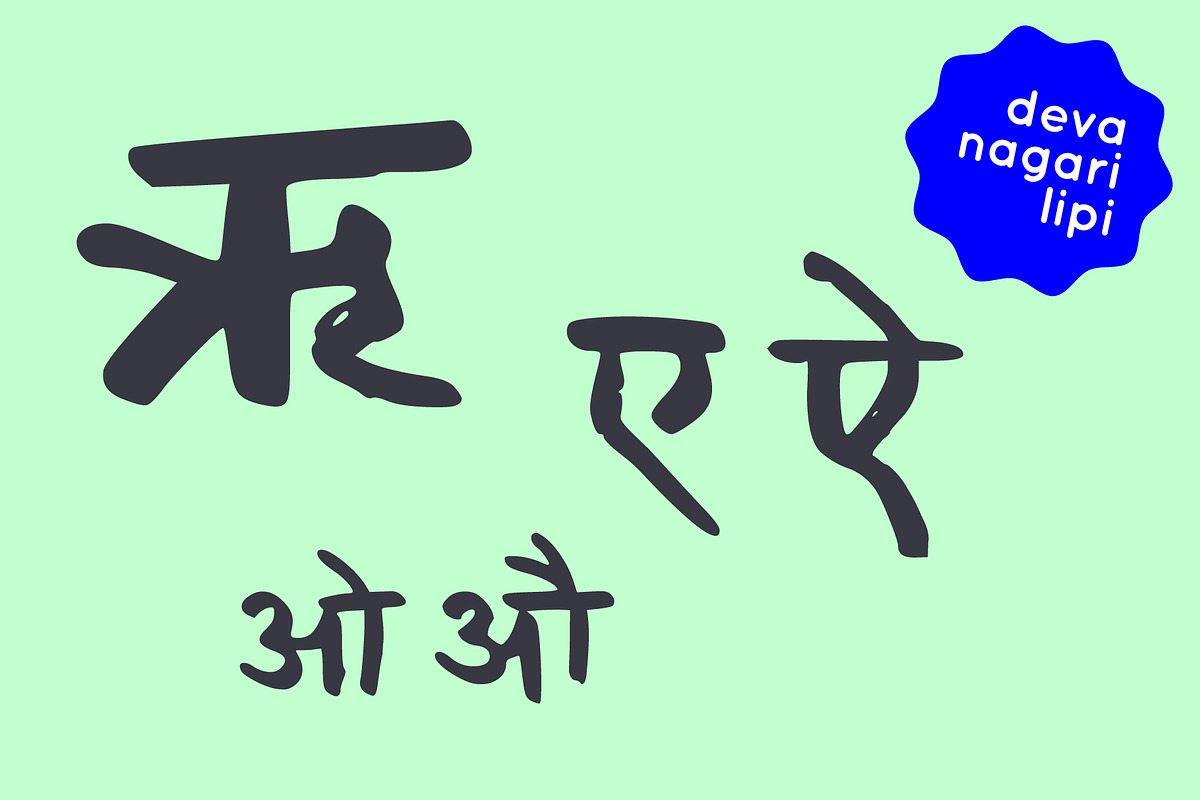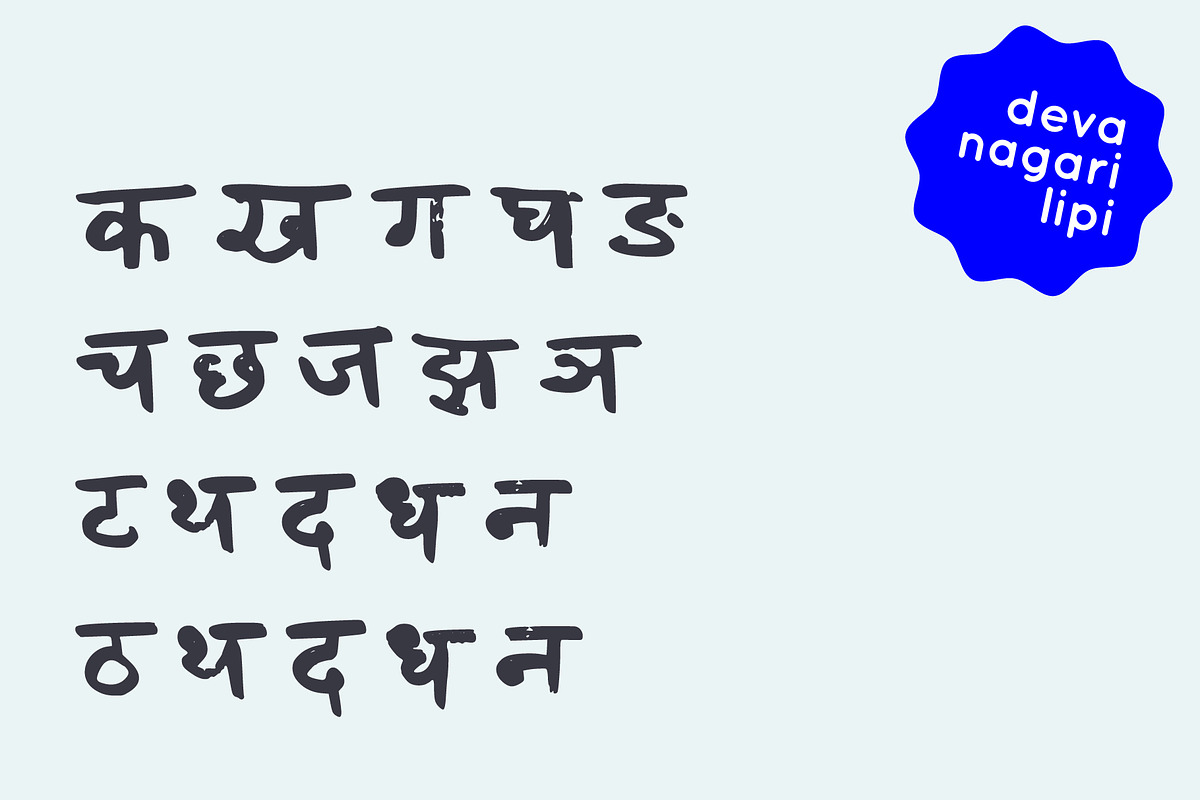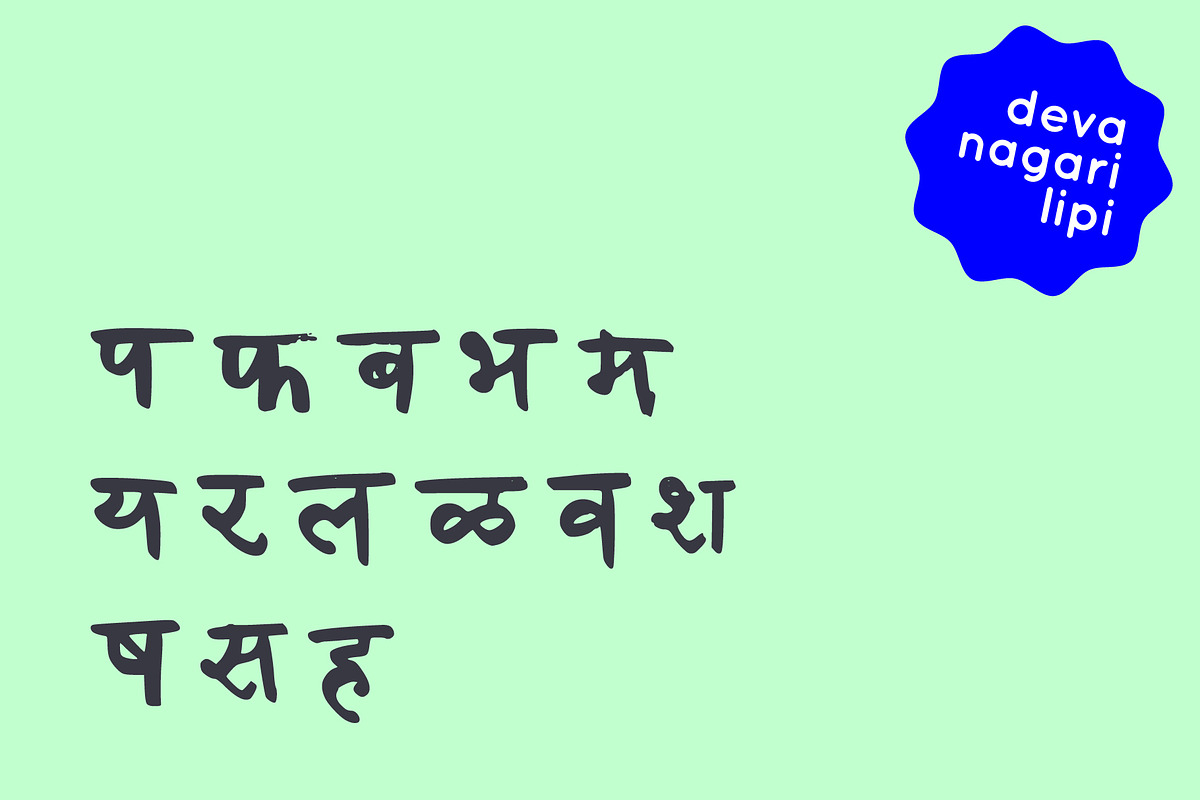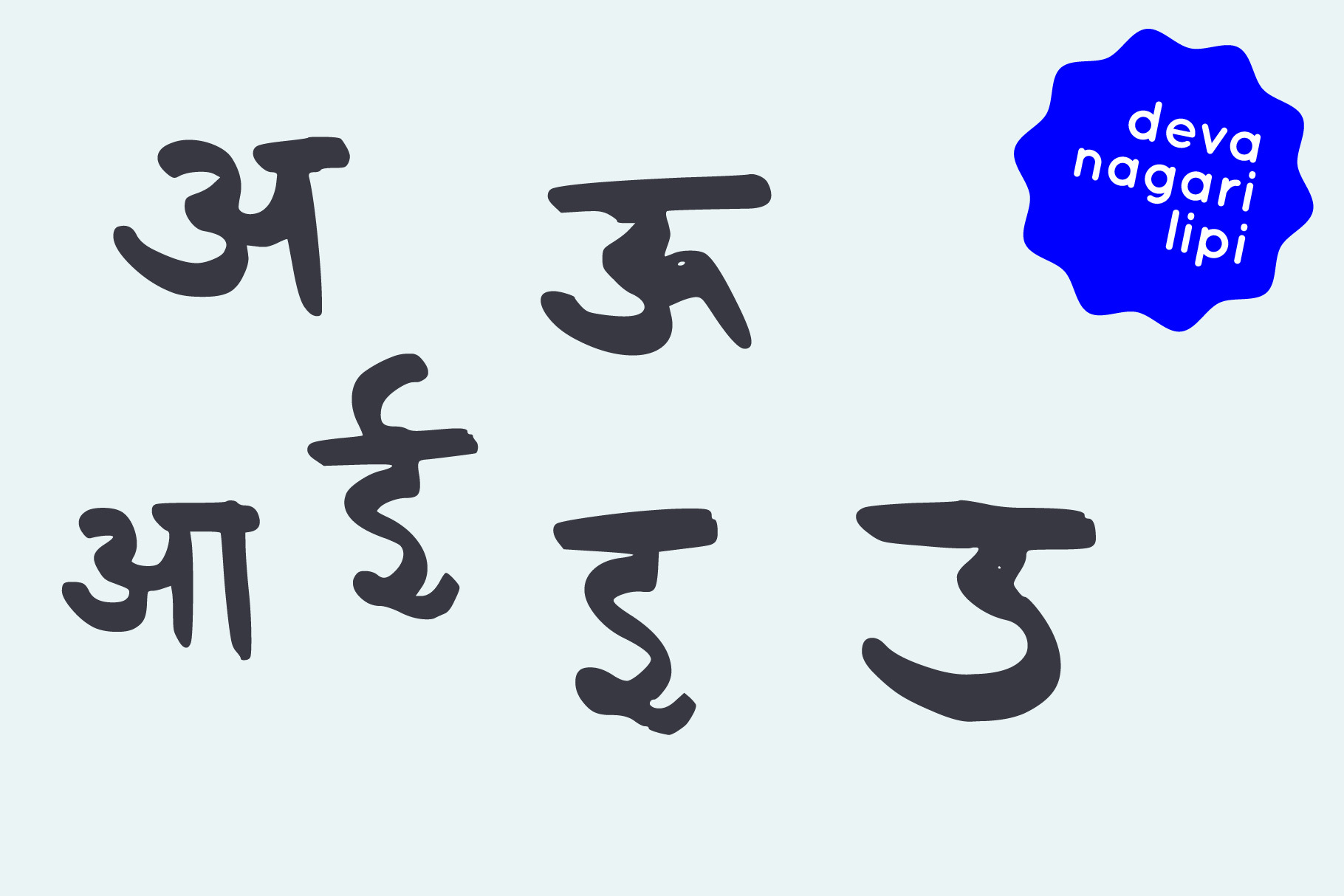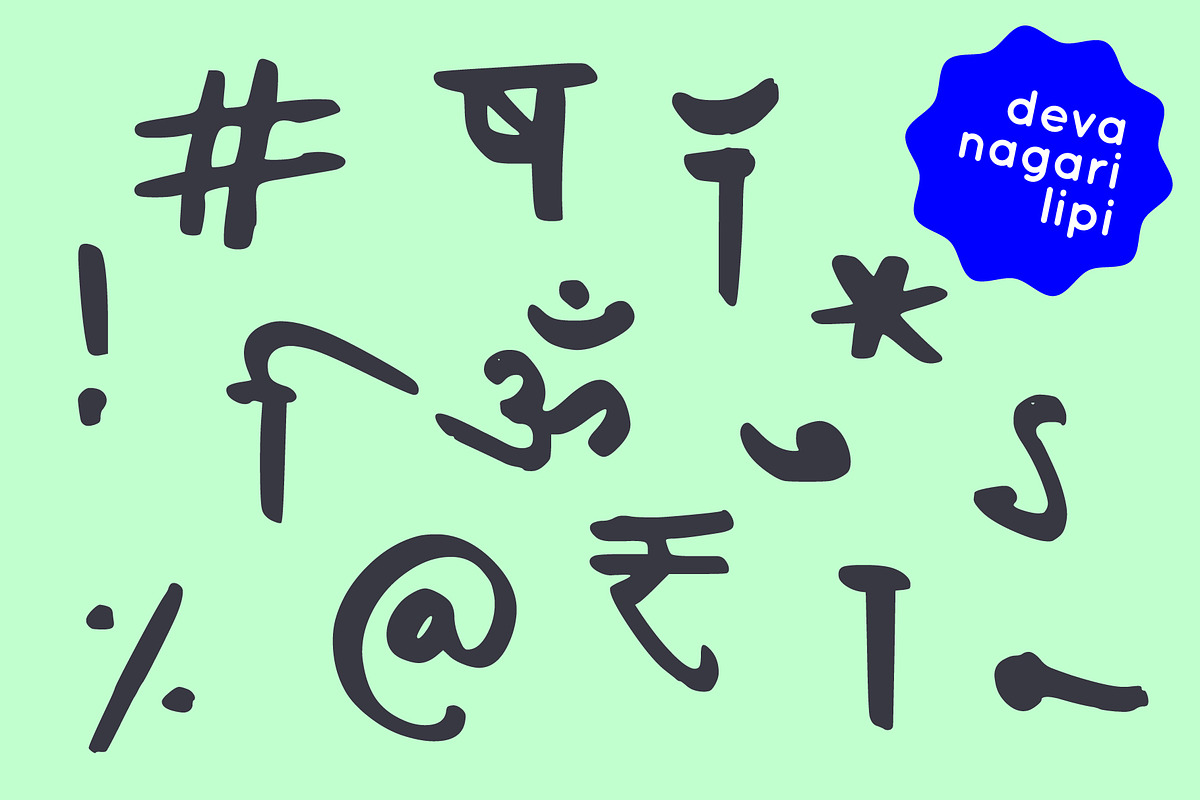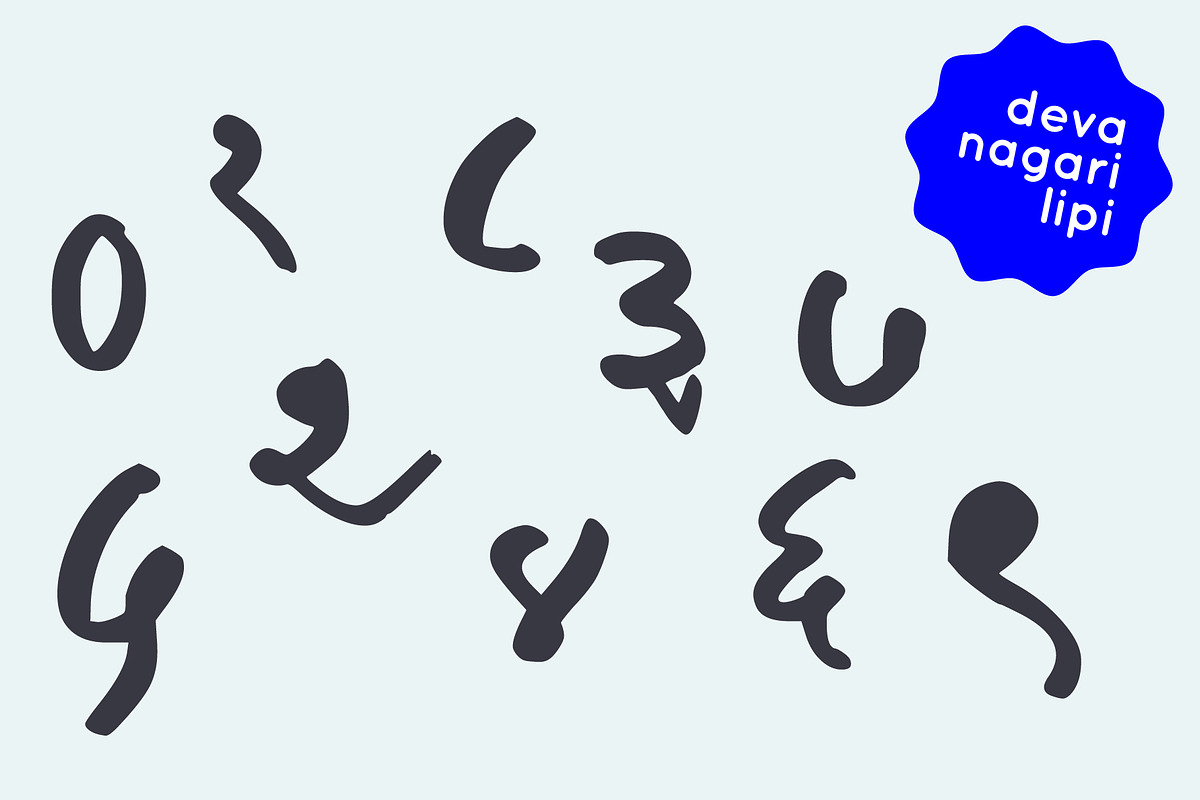
Marker Devanagari - Hindi Typeface
A simple handwritten Devanagari font - suitable for Hindi and Marathi. Upon successful purchase - .ttf and .otf files are available for download immediately.
Perfect for display font, suitable for book covers, educational material, graphic design, and more.
A total of 150 glyphs included - numbers, punctuations, currencies too.